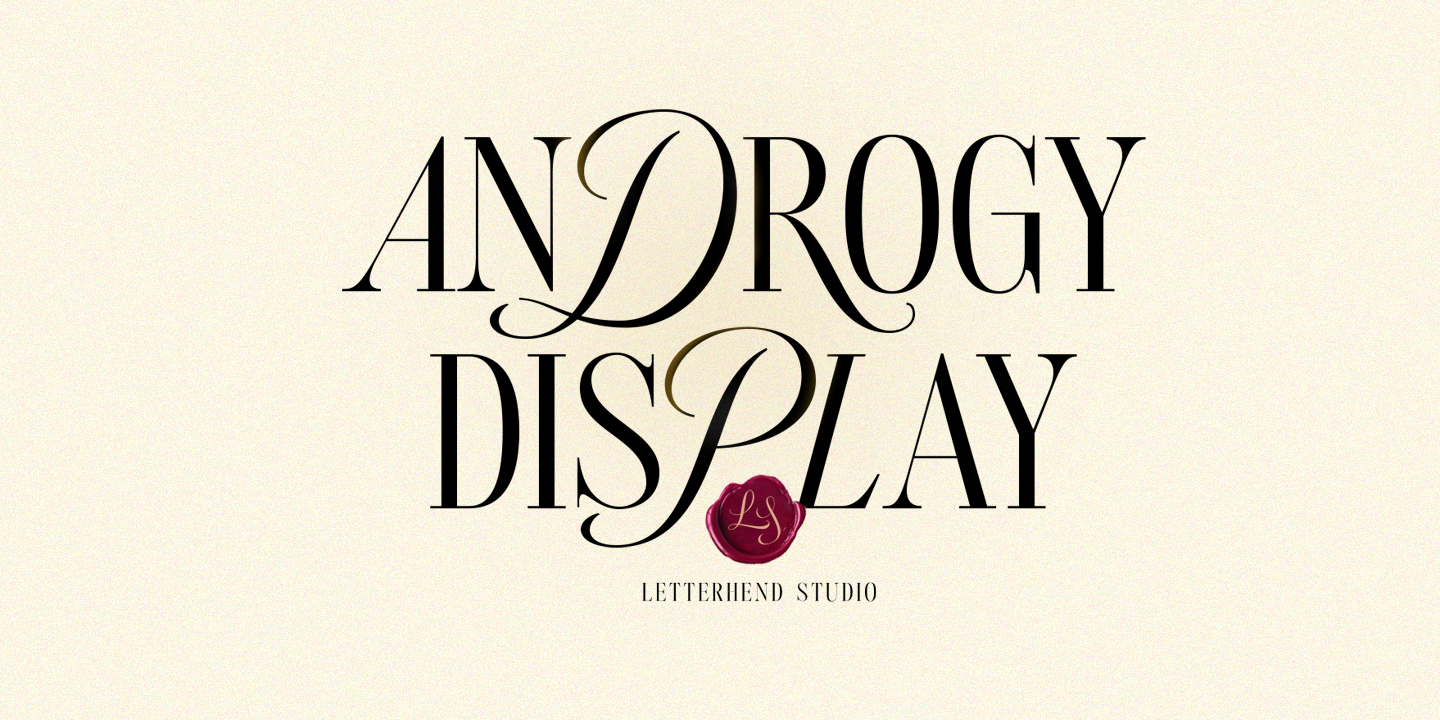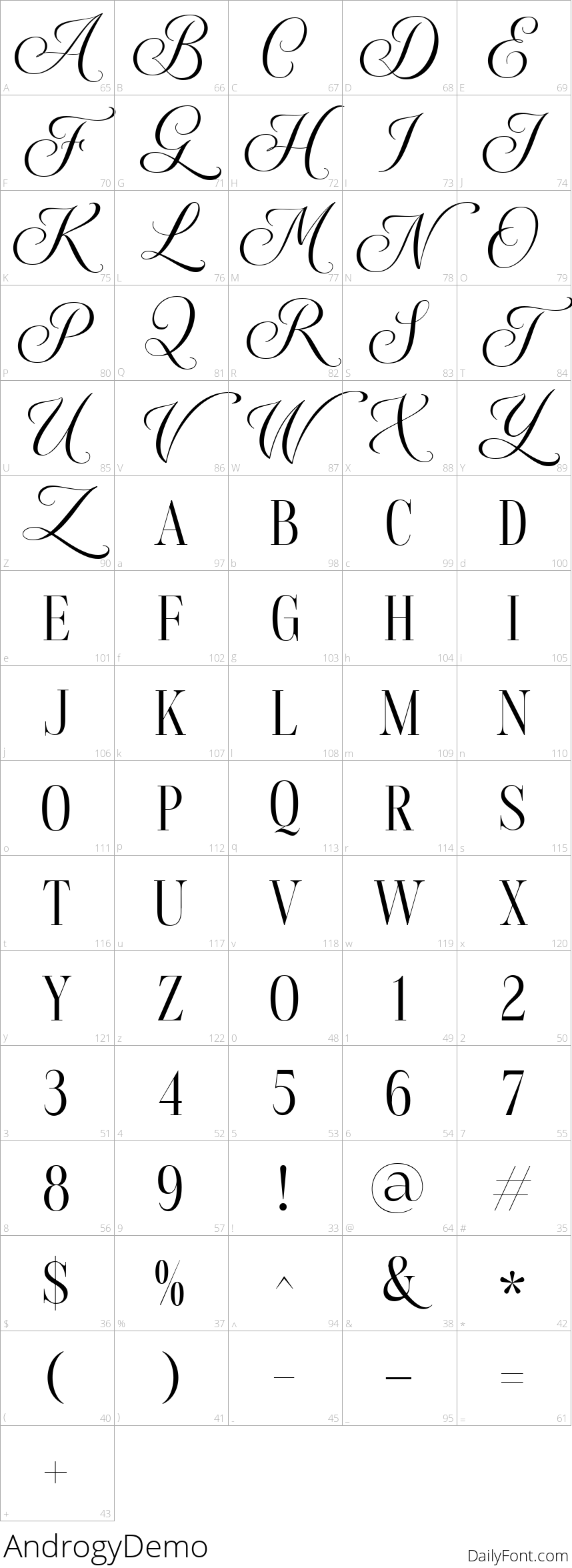
Androgy
Androgy Display is an innovative serif font that strikingly blends sophistication with versatility. Featuring a unique combination of script uppercase letters and elegant serif lowercase characters, Androgy is designed to capture attention and evoke a sense of formality. This dynamic font style makes it ideal for a wide range of applications, including invitations, labels, logos, magazines, books, greeting and wedding cards, packaging, and fashion-related materials.
Whether you're creating a luxurious brand identity or eye-catching marketing materials, Androgy Display provides the perfect touch of elegance. Its dual-style design not only enhances visual appeal but also caters to various creative projects, allowing you to express your artistic vision seamlessly. Elevate your design projects with Androgy, a font that embodies both beauty and functionality, making it a must-have for designers in search of innovative typographic solutions.